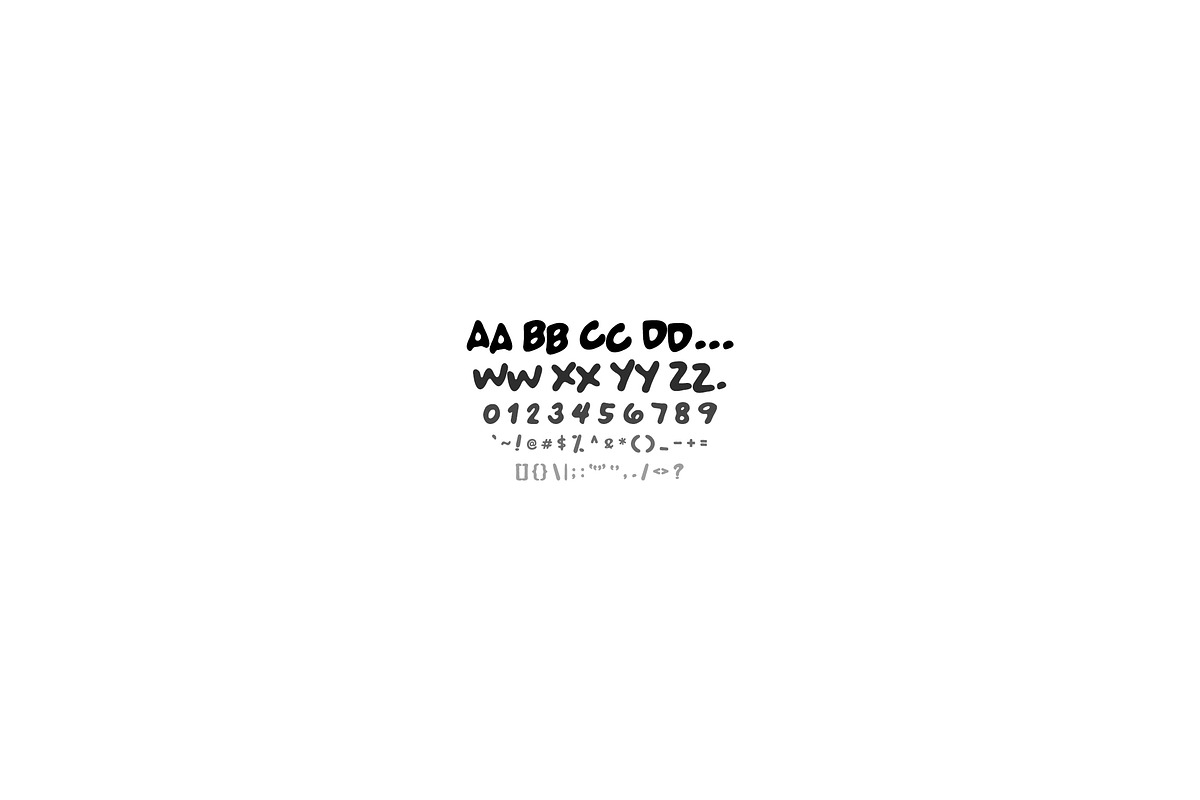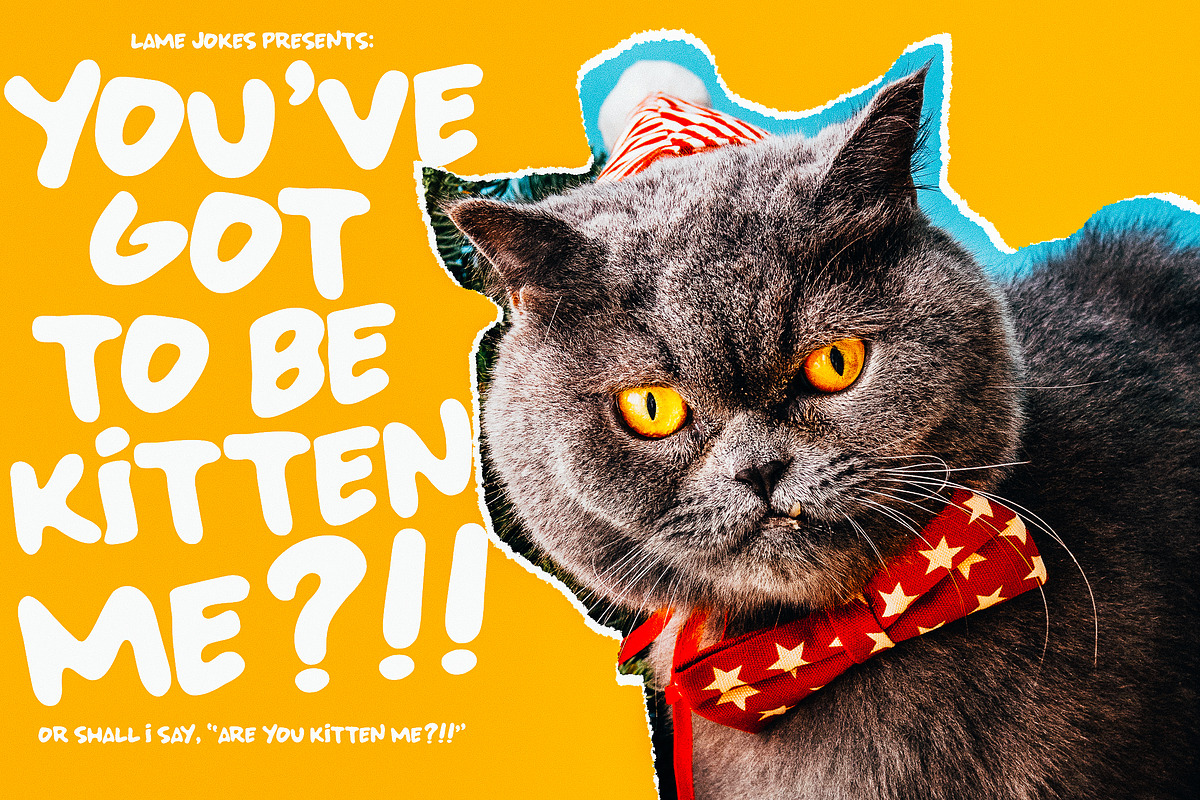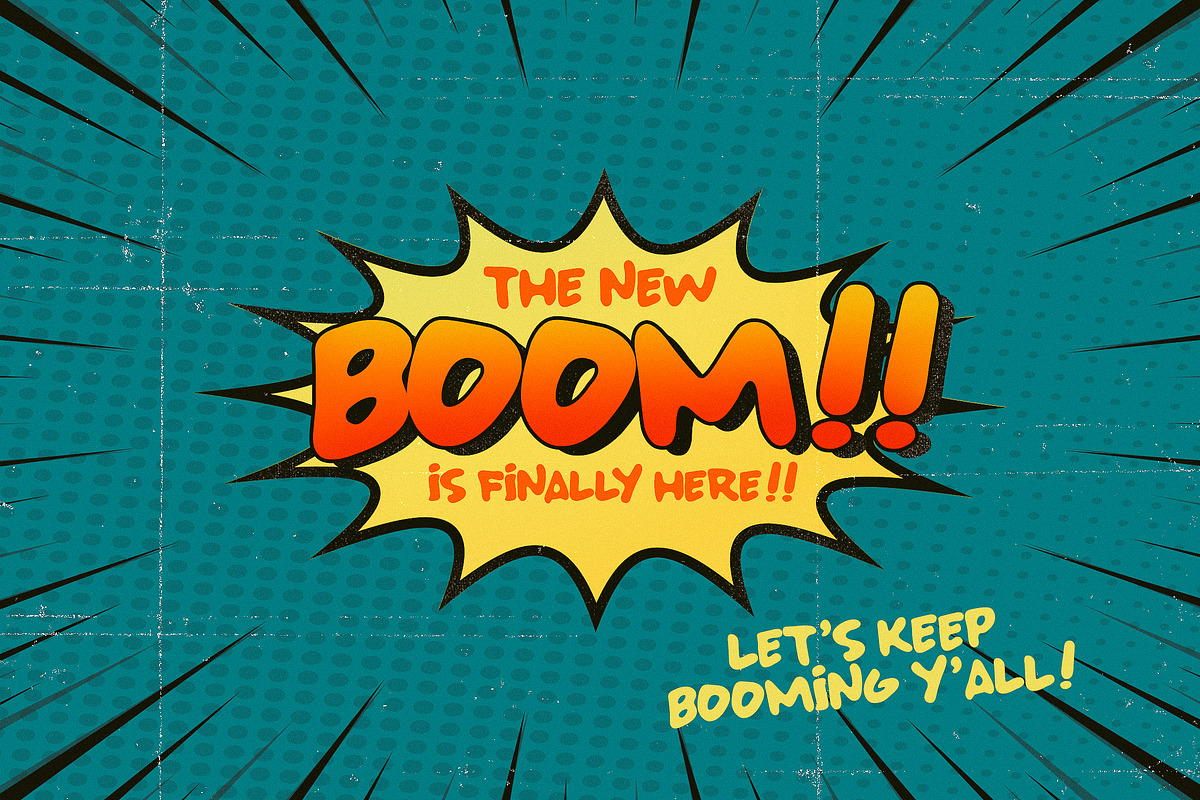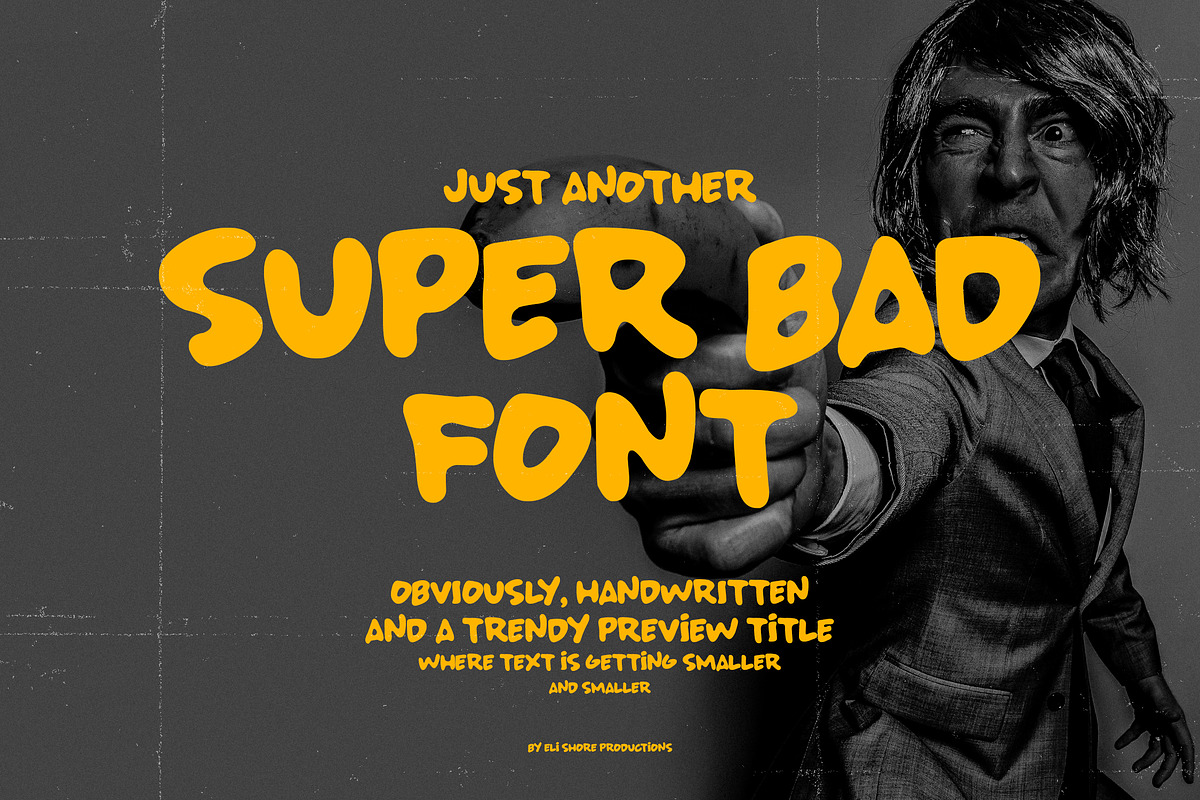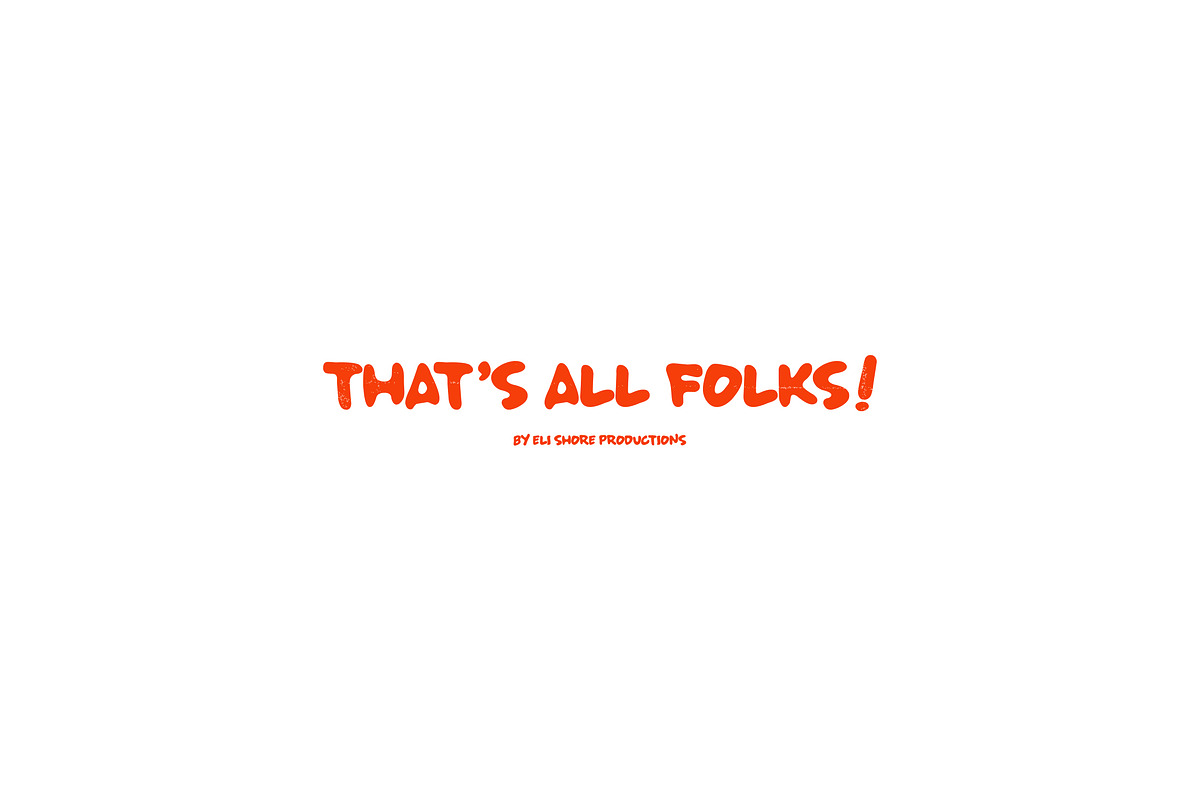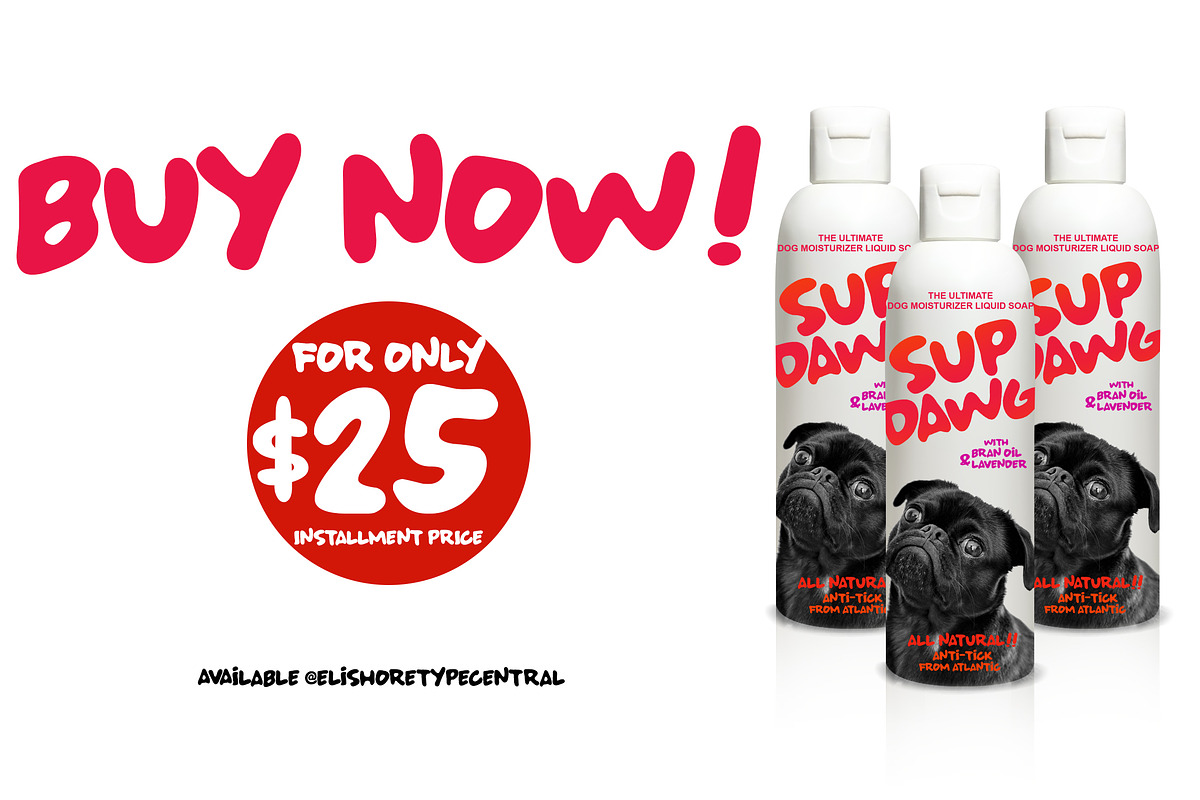
SUPER BAD FONT
Just another SUPER BAD FONT HAS COME! A fancy-comic inspired font with a weighty-handwritten stroke to give bolder and strong word impact. Fits with your everyday memes and blogs/vlogs and other media stuffs. Combine uppercase and lowercase letters to have an unleveled effect.
- Super Bad Font includes standard characters, symbols and numbers.
- Combine uppercase and lowercase letters to have an unleveled effect.
- Super Bad Font includes standard characters, symbols and numbers.
SUPER BAD FONT by Eli Shore Productions fits naturally into Branding, posters, packaging, typography.